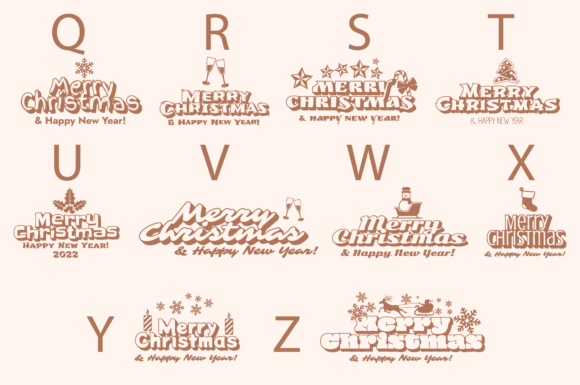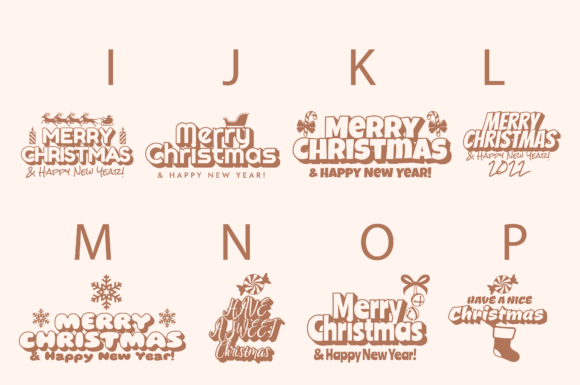
Deck the Halls with Christmas Font: The Ultimate Guide for Designers and Crafters
Are you looking for a font that captures the essence of the holiday season? Look no further than Christmas Font, a cool and vintage-styled dingbats font that’s perfect for adding a touch of festive flair to your designs. In this article, we’ll dive into the world of Christmas Font and explore its uses, benefits, and tips for incorporating it into your creative projects.
What is Christmas Font?
Christmas Font is a unique and eye-catching dingbats font that’s designed to evoke the nostalgia and charm of the holiday season. With its vintage-inspired aesthetic, this font is perfect for creating festive and fun designs that are sure to stand out. Whether you’re a designer looking for a font to use in your Instagram graphics or a crafter searching for a calligraphy script for your DIY projects, Christmas Font is the perfect choice.
Uses for Christmas Font
Christmas Font is incredibly versatile and can be used in a wide range of creative projects. Here are just a few ideas to get you started:
- Instagram Graphics: Add a touch of festive flair to your Instagram feed with Christmas Font. Use it to create eye-catching graphics, holiday-themed quotes, and more.
- DIY Projects: Christmas Font is perfect for crafters who love to get creative with calligraphy and lettering. Use it to add a personal touch to your holiday cards, gift tags, and decorations.
- Holiday Stationery: Create festive and fun stationery with Christmas Font. Use it to design holiday-themed notecards, invitations, and letters.
- Web Graphics: Add some holiday cheer to your website with Christmas Font. Use it to create festive graphics, banners, and more.
Benefits of Using Christmas Font
So why choose Christmas Font for your creative projects? Here are just a few benefits of using this amazing font:
- Unique and Eye-Catching: Christmas Font is a one-of-a-kind font that’s sure to grab attention. Its vintage-inspired aesthetic makes it perfect for creating designs that stand out from the crowd.
- Festive and Fun: Christmas Font is the perfect way to add some holiday cheer to your designs. Its festive and fun aesthetic makes it perfect for creating holiday-themed graphics and more.
Tips for Using Christmas Font
Here are a few tips for getting the most out of Christmas Font:
- Experiment with Colors: Christmas Font looks amazing in a wide range of colors. Experiment with different hues and combinations to find the perfect look for your design.
- Mix and Match: Don’t be afraid to mix and match Christmas Font with other fonts and graphics. This can help create a unique and eye-catching design that’s all your own.
- Keep it Simple: While Christmas Font is perfect for creating complex and intricate designs, sometimes simple is best. Keep your design clean and simple to let the font shine.